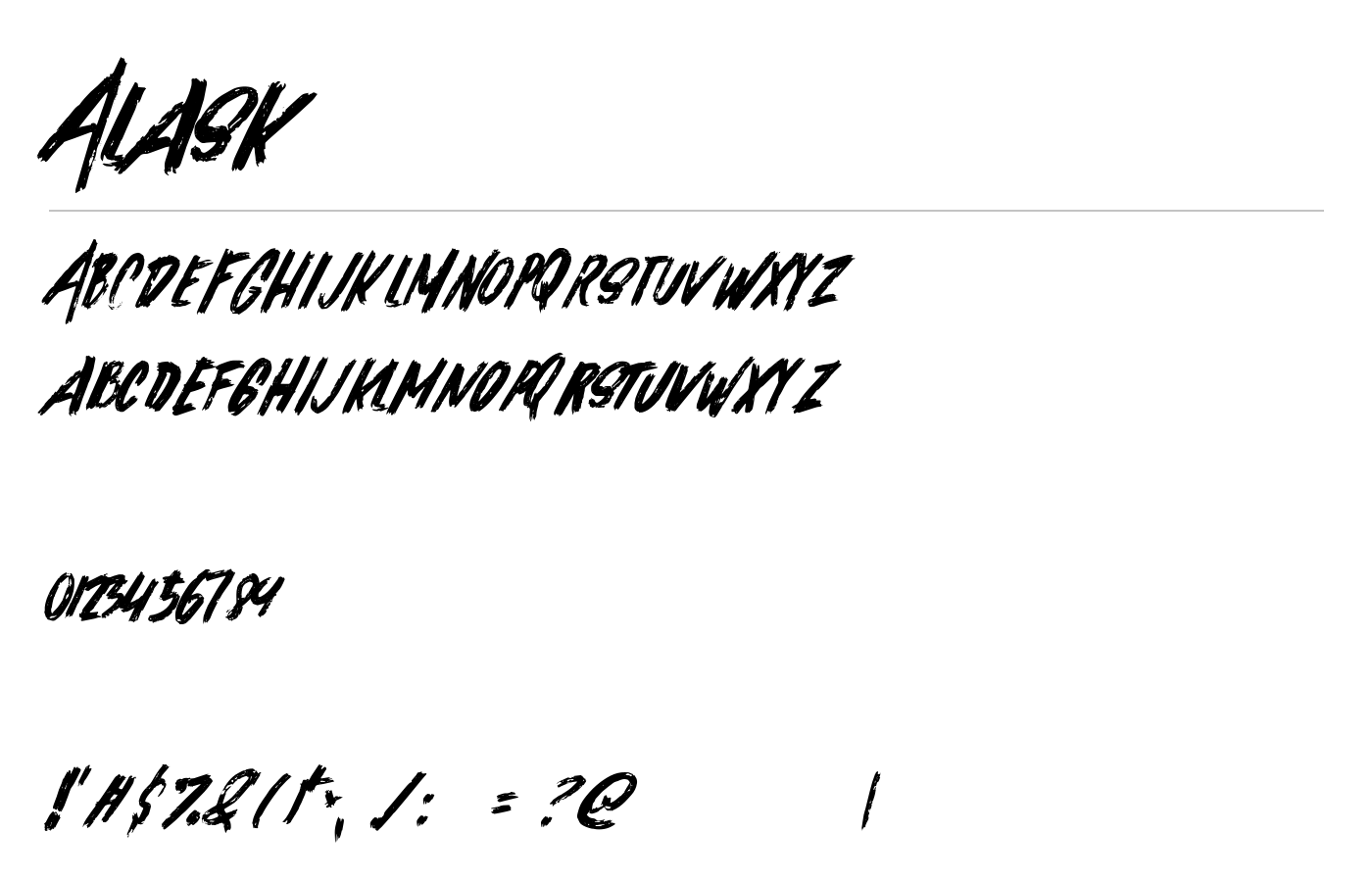
Alask is an energetic and bold brush script font characterized by its rough, textured strokes and dynamic, slanted letterforms. It conveys a sense of movement and creativity, making it ideal for informal and expressive designs such as posters, logos, and branding that aim to feel lively and artistic. This font works best in display settings where its strong personality can stand out and grab attention.
Alask Font